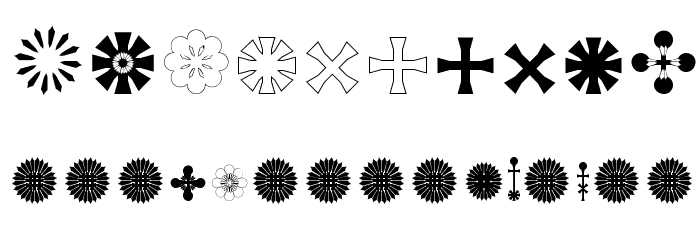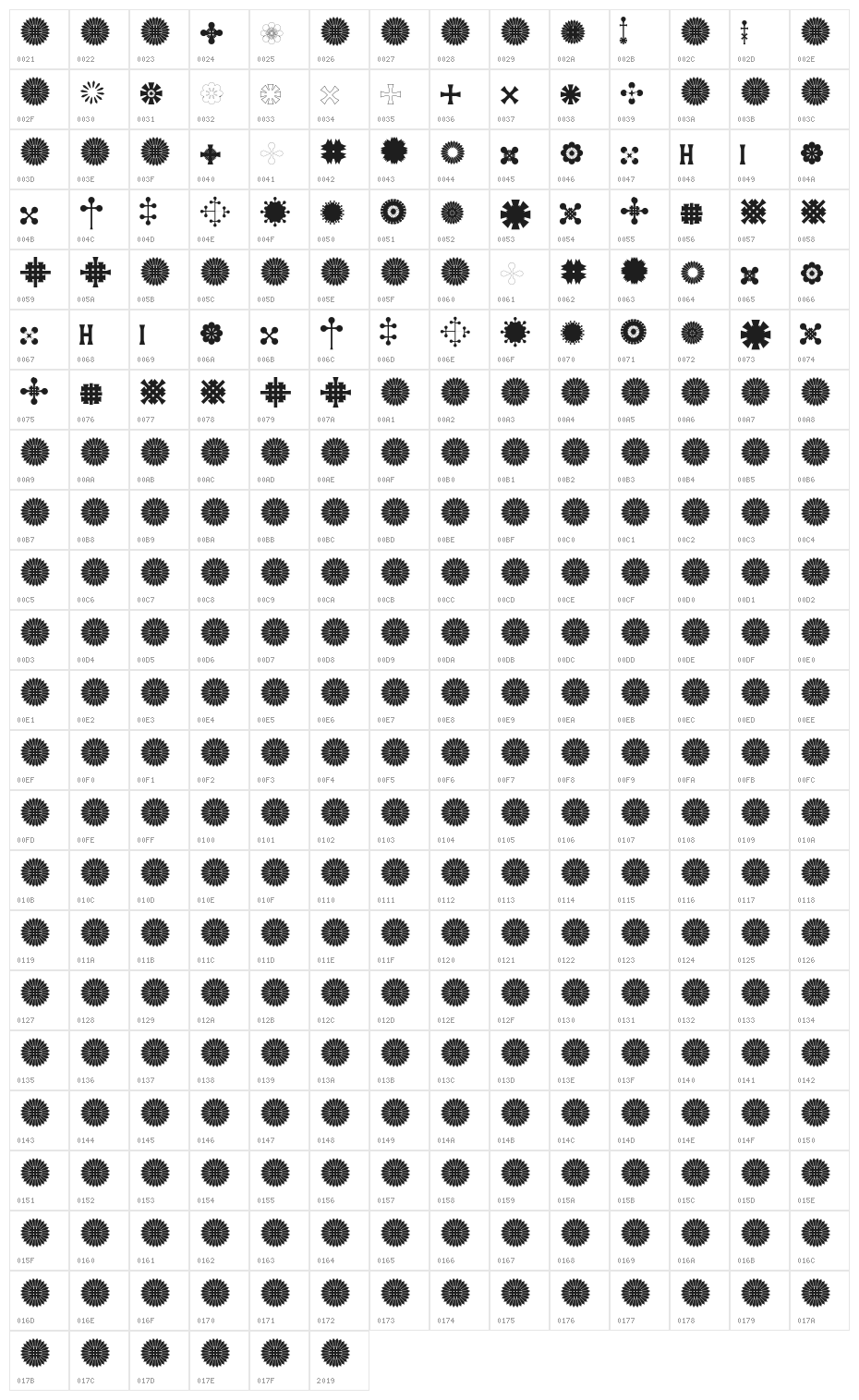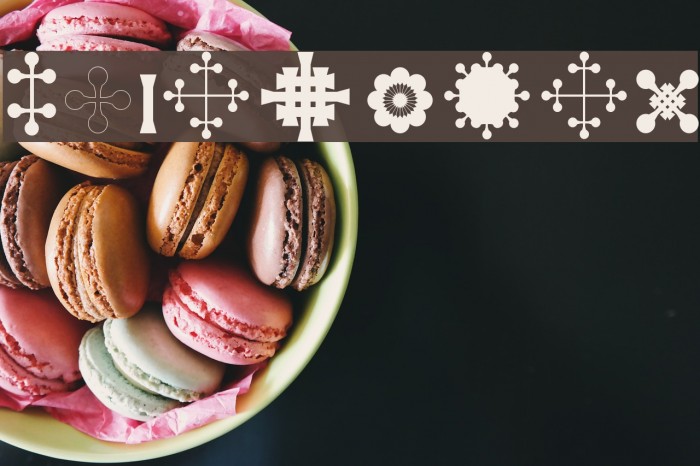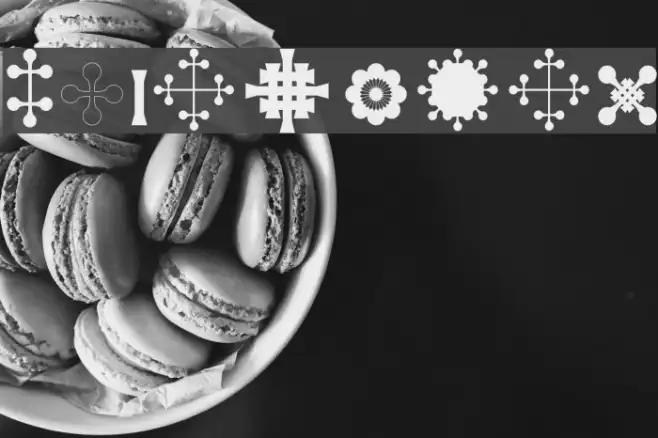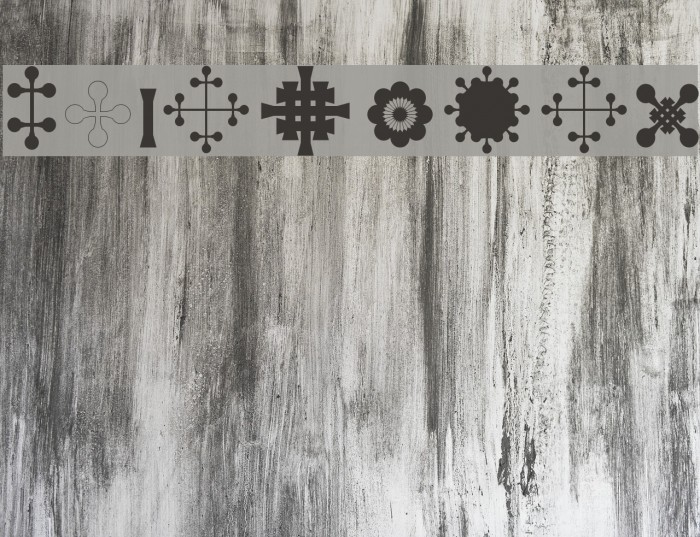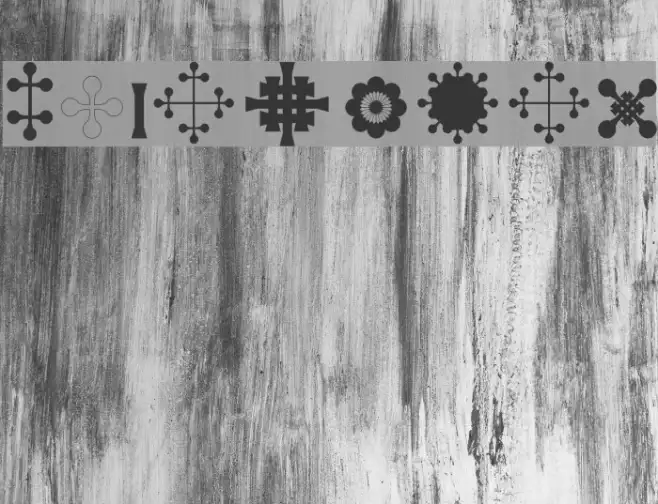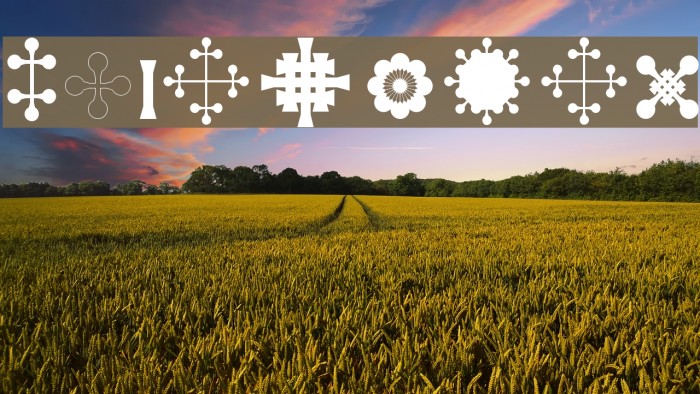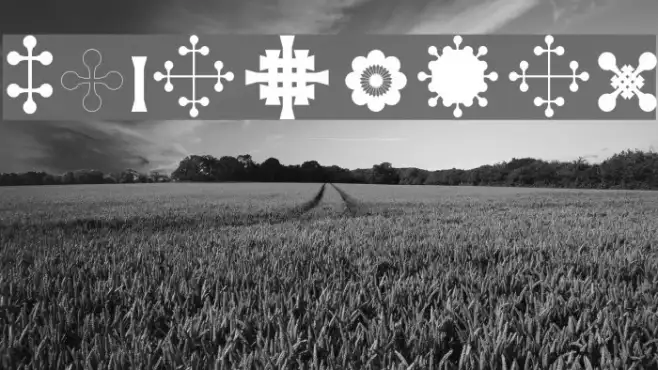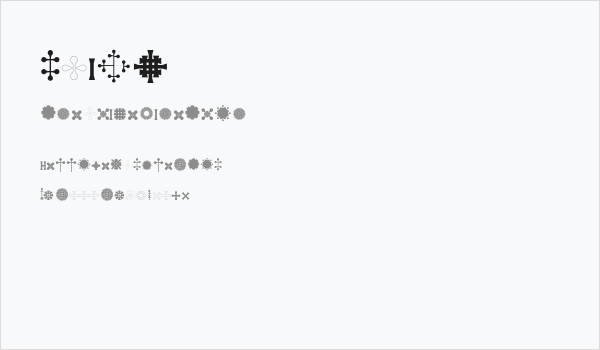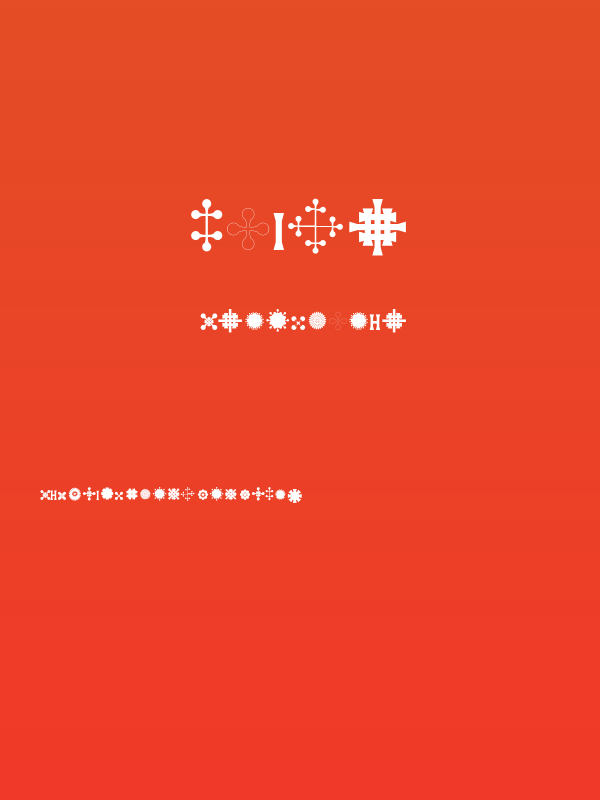
Mainz Font
Mainz Description
A highly decorative and ornamental dingbat font featuring a variety of intricate symbols, floral motifs, geometric shapes, and stylized crosses. The designs are bold, with both filled and outlined elements, and some characters have a playful, almost whimsical quality.
| Overall Style | Decorative, Ornamental, Playful |
| Use Case | Decorative elements, Borders, Accents, Scrapbooking |
| Proposed Projects | Borders, dividers, invitations, decorative accents, scrapbooking, and graphic design projects requiring ornamental symbols. |